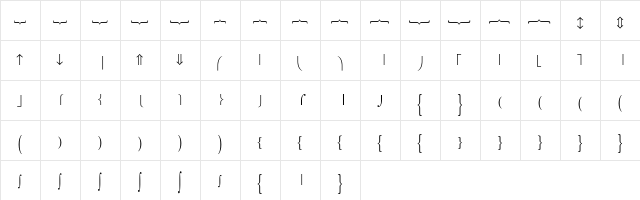
Fences Regular Font Preview
Fences Regular
Design Context for Fences Typeface
Fences offers clean, dependable letterforms without strong stylistic allegiance, making it a practical choice for designers who need flexibility.
Pro Tip: Use Fences in both headline and body roles to test its range before committing to a single application.